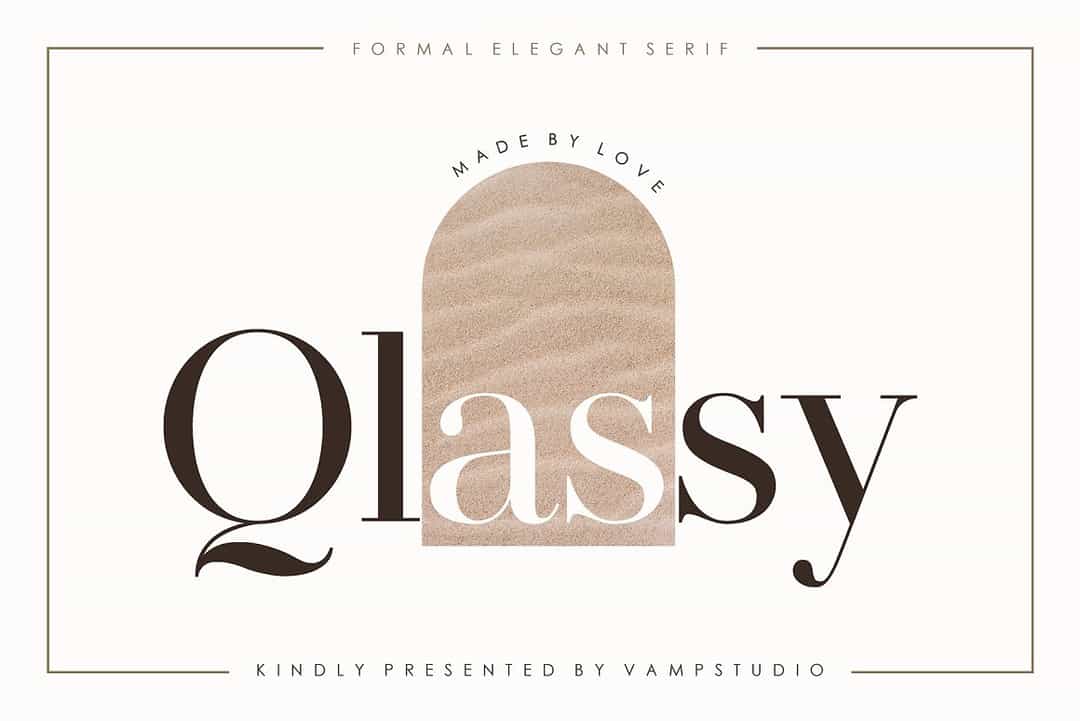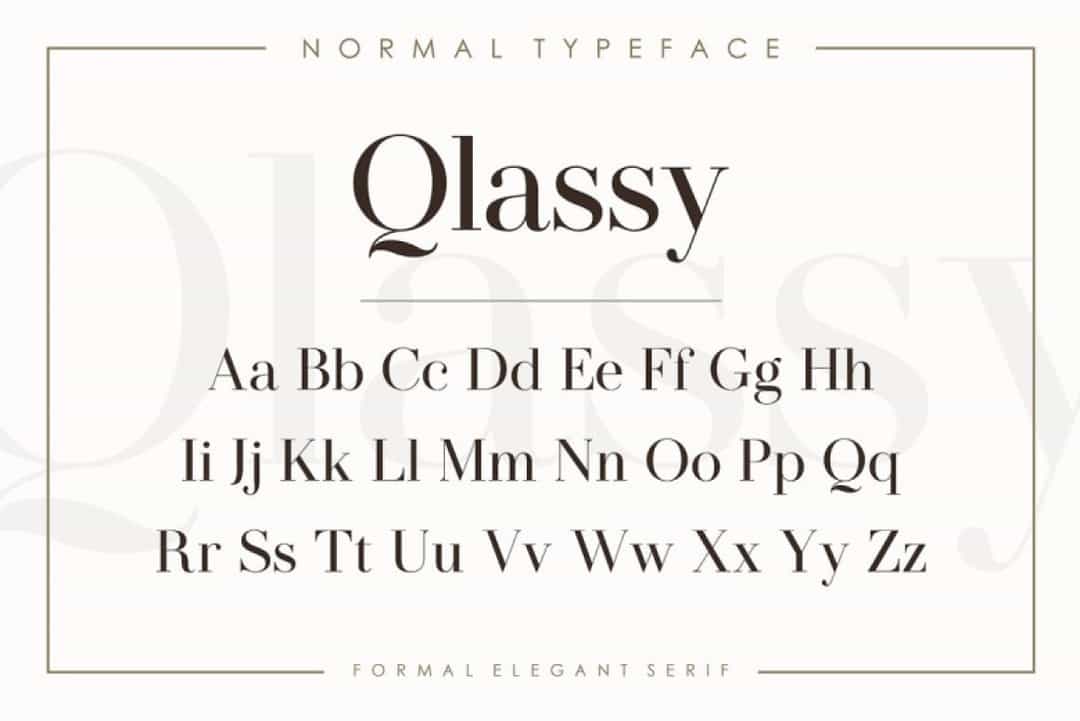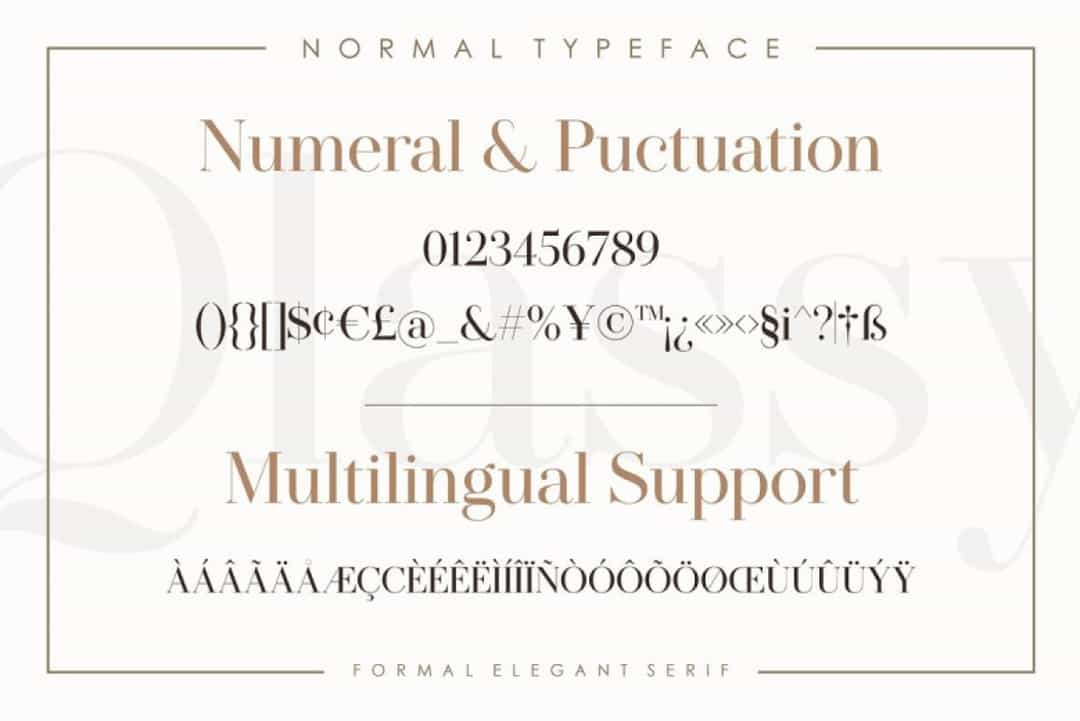
Discover Qlassy Font, part of the Serif collection—a versatile and unique font perfect for adding a personal touch to your projects. Download it for free and enjoy crafting designs with style, from invitations to social media posts. This font is available exclusively for personal use, giving you the freedom to create without limits. Unlock your creativity with Qlassy Font today!
Qlassy is a contemporary, sophisticated serif typeface created with experienced hands to be both simple and elegant – the perfect option for logos, branding projects wedding designs Social media posts advertisements packaging label designs packaging products or packaging labels photo watermark invitations stationery invitations as well as any project that requires writing skills.